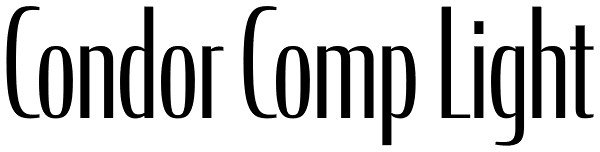
Condor
"Condor" is a distinctive font that merges the charm of the early 20th century with modern design elements, creating a unique typographic experience. Inspired by the commercial lettering and iconic landmarks of the 1920s and 1930s, this font stands out with its high-contrast style. The design, a brainchild of David Jonathan Ross, elegantly combines historical elegance with contemporary aesthetics. It showcases flattened curves and wide-open apertures, presenting a rationalized structure that brings a fresh perspective to sans-serif typefaces. The allure of Condor lies in its ability to evoke a sense of nostalgia while remaining relevant and vibrant in contemporary applications. Its high-contrast style adds a touch of drama and sophistication, making it ideal for a wide range of uses, from branding and advertising to editorial design. The font family is versatile and adaptable, offering a glimmering array of weights and styles.